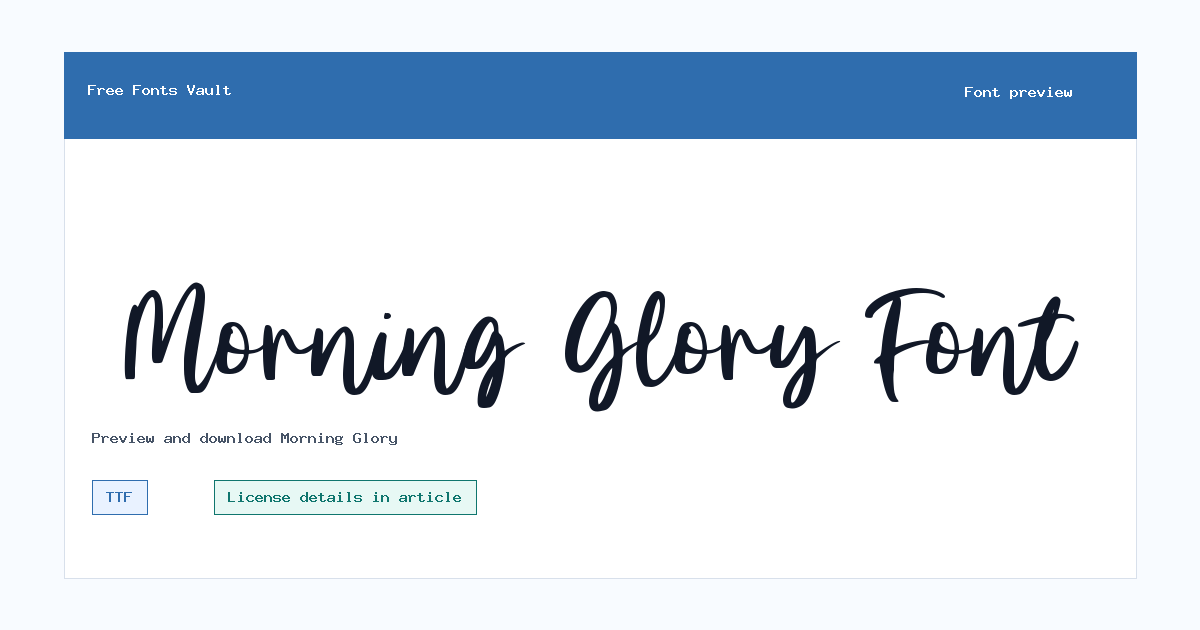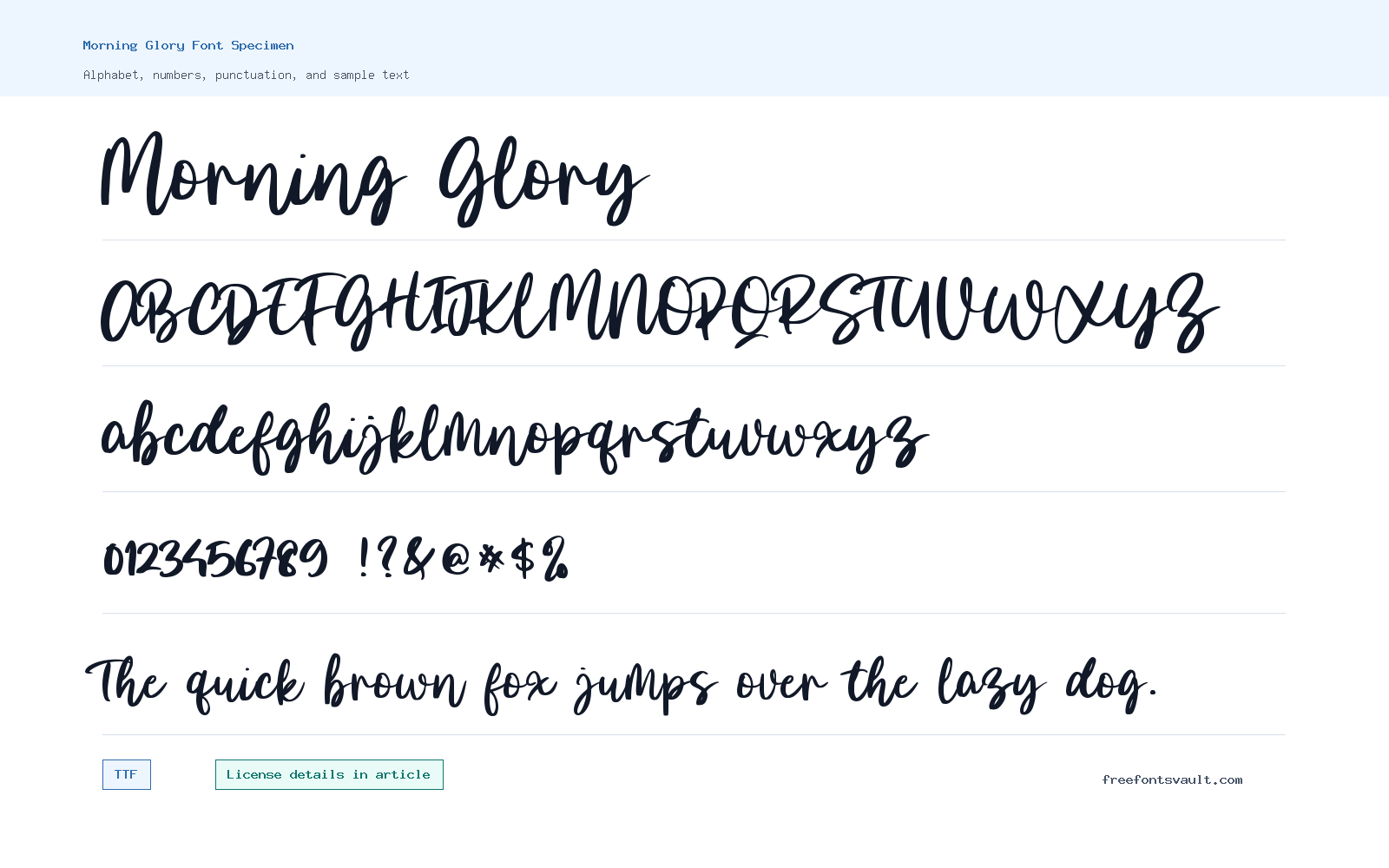
Morning Glory
- Designer Colllab Studio
Morning Glory font.
Morning Glory is a decorative regular TTF font for short text that needs a softer, more personal tone than plain typography. It is a practical choice to preview for headings, labels, invitations, and social graphics.
Morning Glory is listed as a single regular TrueType file, so it is best treated as a display accent rather than a full multi-style family. Use the preview box to test names, product lines, event titles, quote graphics, or short brand phrases before downloading. A decorative font can look polished in one phrase and crowded in another, so real wording matters.
The font is credited to Colllab Studio. Because only one weight is listed, contrast will usually come from size, spacing, color, and pairing rather than bold or italic variants. For a cleaner layout, use Morning Glory for the main phrase and pair it with a readable sans serif or serif for details, descriptions, dates, prices, and paragraph copy.
- Decorative display direction suited to short, expressive text.
- Single listed style with normal 400 weight.
- Credited to Colllab Studio.
- Best paired with a simpler companion font for longer supporting copy.
- Invitation headings, greeting cards, and event graphics.
- Product labels, boutique brand mockups, and quote images.
- Blog headers, social posts, and short decorative titles.
- Design tests where a single soft display style is enough.
Preview the final words at the final size. Decorative fonts are sensitive to capitals, spacing, and punctuation. Keep the text short, avoid dense paragraphs, and use a simpler companion font for readability.
Is Morning Glory good for paragraphs?
It is better for short decorative text. Use a simpler font for paragraphs, captions, menus, and long descriptions.